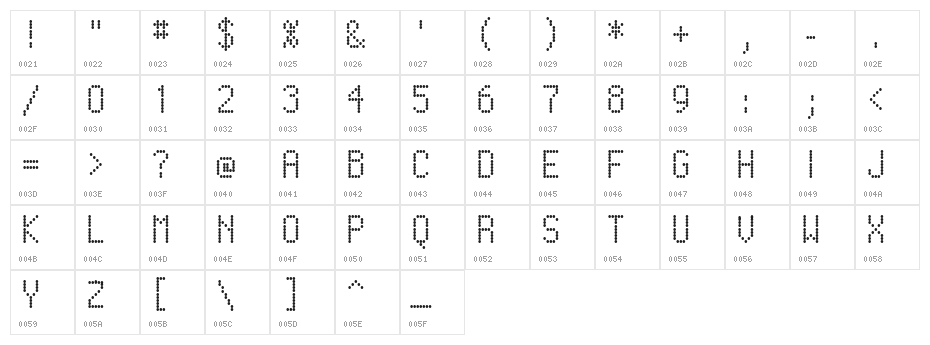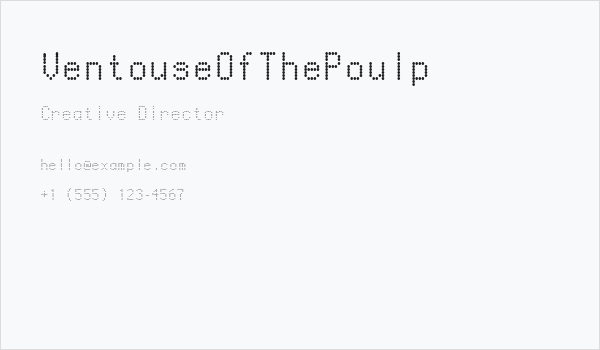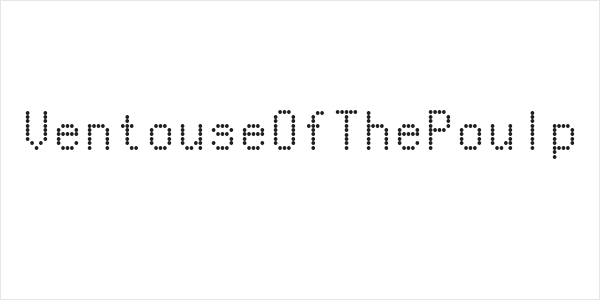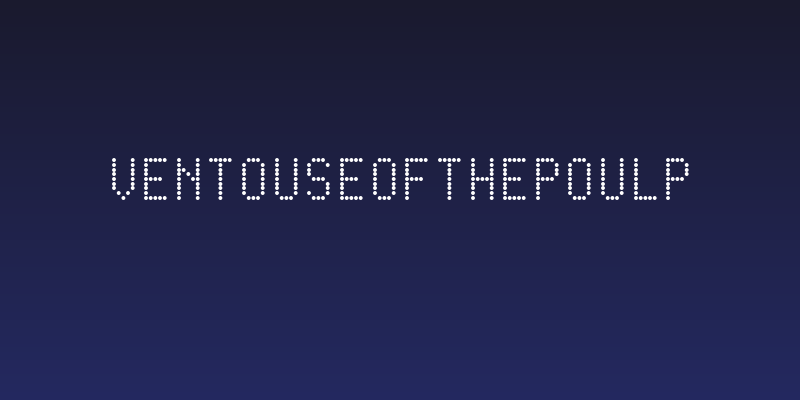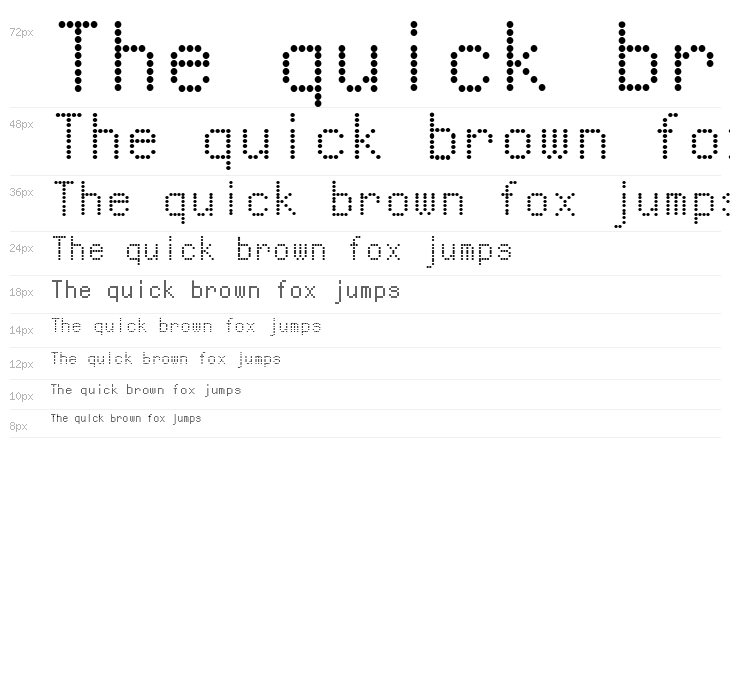
VentouseOfThePoulp Font
VentouseOfThePoulp Description
This font features a unique design composed entirely of dots, creating a pixelated effect that is both modern and playful. Each character is formed by a grid of evenly spaced dots, giving it a digital and futuristic appearance. The uniformity of the dots across all characters ensures a cohesive look, while the rounded shapes add a touch of softness to the overall design. This font is highly legible despite its unconventional style, making it suitable for a variety of creative applications.
| Proposed Projects | Ideal for digital art projects, tech-themed designs, posters, and creative branding. |